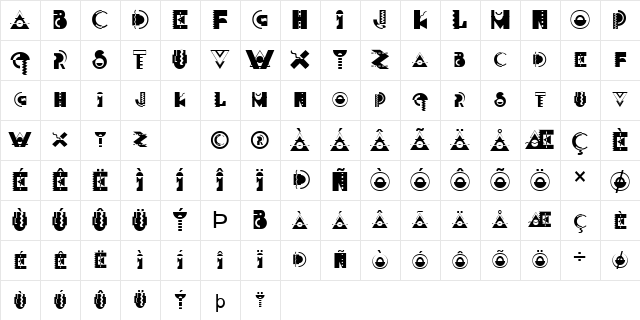
Jazz Normal
Design Context for Jazz
Jazz is a composed and adaptable typeface that performs quietly and consistently across a wide range of design contexts.